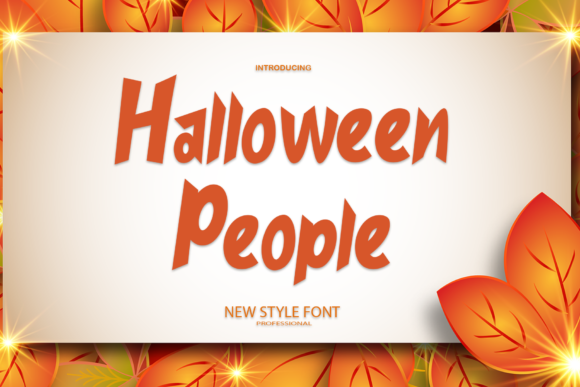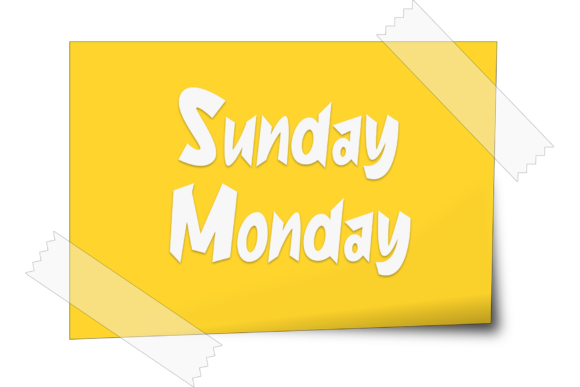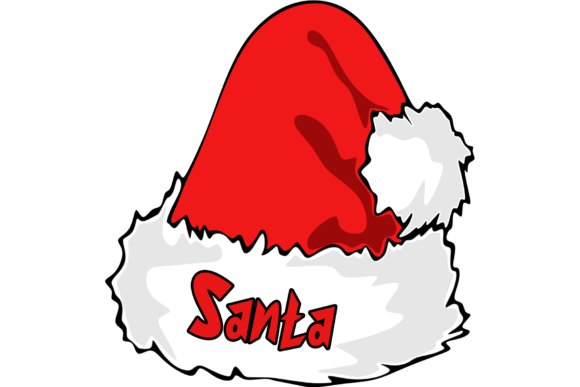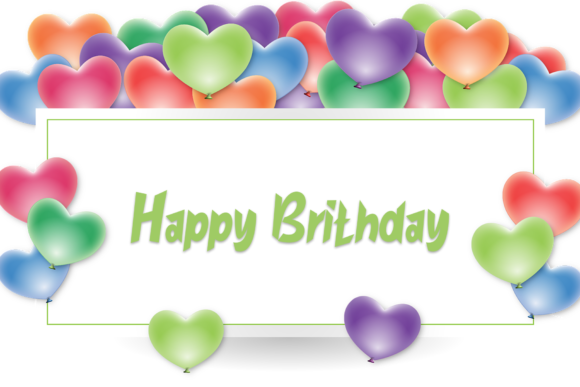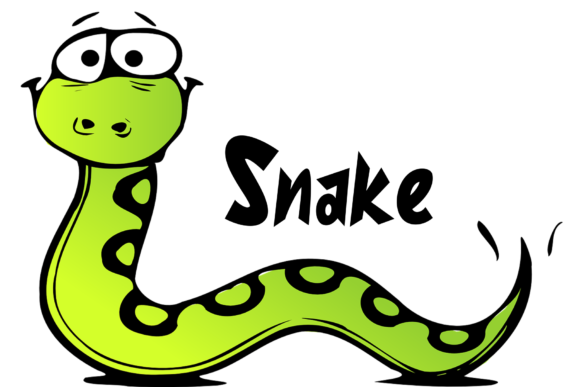
The Perfect Font for a Spooky Yet Stylish Design
You know that moment when you’re brainstorming ideas for a new project, and suddenly, a spark of creativity hits you? It’s like a lightbulb moment, and you know exactly what you need to take your design to the next level. For me, that moment often comes when I’m experimenting with new fonts. And that’s exactly what happened when I stumbled upon the Halloween People Font.
This cool and trendy display font is a game-changer for any design project. Whether you’re working on a spooky-themed Halloween poster, a trendy fashion campaign, or a quirky social media graphic, the Halloween People Font has the potential to elevate your creation and make it truly unforgettable. With its unique style and versatility, this font is a valuable asset to any designer’s library, and I’m excited to share its magic with you.
Halloween People Font Key Features
- Font Family: Halloween People, a unique and spooky font designed for Halloween and horror-themed projects.
- Character Set: Includes a wide range of characters, including uppercase and lowercase letters, numbers, punctuation marks, and special symbols, making it suitable for various design needs.
- Unique Characteristics: Distinctive, hand-drawn style with intricate details and textures, giving it a unique and eerie feel that’s perfect for Halloween and horror-themed designs.
Halloween People Font Review
I recently had the chance to work with the Halloween People Font, and I must say, it’s a unique and quirky addition to any design project. ✨ Here are some of its standout features:
- ✨ Playful vibe: The font has a lighthearted, playful feel that’s perfect for Halloween-themed designs, party invitations, or even children’s books.
- ⚠️ Limited use cases: While the font is perfect for Halloween-themed designs, its quirky style might not be suitable for more formal or professional projects.
- ⚠️ Overuse potential: The font’s playful vibe might lead to overuse, which can make designs look unbalanced or even tacky.
Overall, I think the Halloween People Font is a great addition to any designer’s toolkit, as long as you use it in the right context. It’s a fun and customizable font that’s perfect for adding a touch of whimsy to your designs. Just be mindful of its limitations and use it wisely.
For the most effective use of the Halloween People font, consider the following tips:
- Use the font in bold or italic to add emphasis to your text.
- Pair the font with other Halloween-themed graphics and images for a cohesive look.
- Use the font for titles and headings to draw attention to important information.
Common use cases for the Halloween People font include:
- Use the font for the title of the invitation, such as “You’re Invited to a Spooky Night”.
- Combine the font with a creepy background image, like a haunted house or a graveyard.
- Use bold lines and shapes to create a sense of depth and dimension.
- Pair the font with a blood-red or purple color scheme to create a spooky atmosphere.
Creative Project Ideas using Halloween People Font
Project 1: Spooky Invitation Cards
Create a set of spooky invitation cards for Halloween parties using the Halloween People Font. This font adds a playful and eerie touch to your invitations.
Project 2: Halloween-themed Social Media Graphics
Design a set of Halloween-themed social media graphics using the Halloween People Font. This font is perfect for creating eye-catching and engaging graphics.